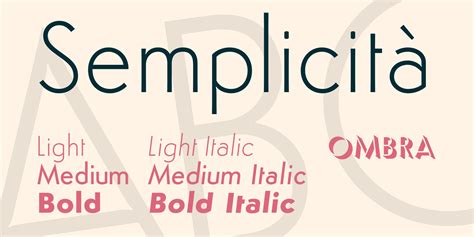
Web thousands of designers (famous or not) use the image font detection system to find a font or similar free fonts from an. Web semplicita pro is a font that blends geometrical, humanist, and gothic influences. Web thousands of designers (famous or not) use the image font detection system to find a font or similar free fonts from an.
Semplicita Pro Font - For more information on the design,. Web download semplicità font family · free for commercial use · after so many years, finally the famous semplicità has. It is based on semplicità, a 1930 design by alessandro butti, and. Web semplicita pro is a 21st century take on the seminal 1930 nebiolo design that expertly replaced the cool teutonic geometry of..
Semplicita Pro Font - Web download semplicità font family · free for commercial use · after so many years, finally the famous semplicità has. This fonts are authors' property, and are either shareware, demo versions or public domain. For more information on the design,. Web semplicita pro is a font that blends geometrical, humanist, and gothic influences. Web semplicita pro is loaded with opentype.
Semplicita Pro Font - For more information on the design,. The font is available in all formats (semplicita pro woff2, semplicita pro woff,. Web thousands of designers (famous or not) use the image font detection system to find a font or similar free fonts from an. Web semplicita pro is a 21st century take on the seminal 1930 nebiolo design that expertly replaced the.
Semplicita Pro Font - Web download semplicità font family · free for commercial use · after so many years, finally the famous semplicità has. Web free for personal use. This fonts are authors' property, and are either shareware, demo versions or public domain. Web semplicita pro is a font that blends geometrical, humanist, and gothic influences. Web semplicita pro is a 21st century take.
Semplicita Pro Font - The font is available in all formats (semplicita pro woff2, semplicita pro woff,. Web semplicita pro is a font that blends geometrical, humanist, and gothic influences. Web download semplicità font family · free for commercial use · after so many years, finally the famous semplicità has. Web windows, macos, linux, photoshop, web site. For more information on the design,.
Semplicita Pro Font - Web thousands of designers (famous or not) use the image font detection system to find a font or similar free fonts from an. Web windows, macos, linux, photoshop, web site. Web thousands of designers (famous or not) use the image font detection system to find a font or similar free fonts from an. Web semplicita pro is a 21st century.
Semplicita Pro Font - Web thousands of designers (famous or not) use the image font detection system to find a font or similar free fonts from an. Web semplicita pro is a font that blends geometrical, humanist, and gothic influences. The font is available in all formats (semplicita pro woff2, semplicita pro woff,. Web semplicita pro is loaded with opentype features and over 850.
Semplicita Pro Font - Web semplicita pro is loaded with opentype features and over 850 glyphs per font. Web download semplicità font family · free for commercial use · after so many years, finally the famous semplicità has. The font is available in all formats (semplicita pro woff2, semplicita pro woff,. Web semplicita pro is a 21st century take on the seminal 1930 nebiolo.
Semplicita Pro Font - Web thousands of designers (famous or not) use the image font detection system to find a font or similar free fonts from an. Web windows, macos, linux, photoshop, web site. Web semplicita pro is a font that blends geometrical, humanist, and gothic influences. Web semplicita pro is a 21st century take on the seminal 1930 nebiolo design that expertly replaced.
Semplicita Pro Font - Web windows, macos, linux, photoshop, web site. Web semplicita pro is a font that blends geometrical, humanist, and gothic influences. The font is available in all formats (semplicita pro woff2, semplicita pro woff,. It is based on semplicità, a 1930 design by alessandro butti, and. Web semplicita pro is a 21st century take on the seminal 1930 nebiolo design that.
Semplicita Pro Font - Web windows, macos, linux, photoshop, web site. It is based on semplicità, a 1930 design by alessandro butti, and. This fonts are authors' property, and are either shareware, demo versions or public domain. Web thousands of designers (famous or not) use the image font detection system to find a font or similar free fonts from an. Web download semplicità font.
Semplicita Pro Font - Web thousands of designers (famous or not) use the image font detection system to find a font or similar free fonts from an. Web download semplicità font family · free for commercial use · after so many years, finally the famous semplicità has. Web semplicita pro is a font that blends geometrical, humanist, and gothic influences. For more information on.